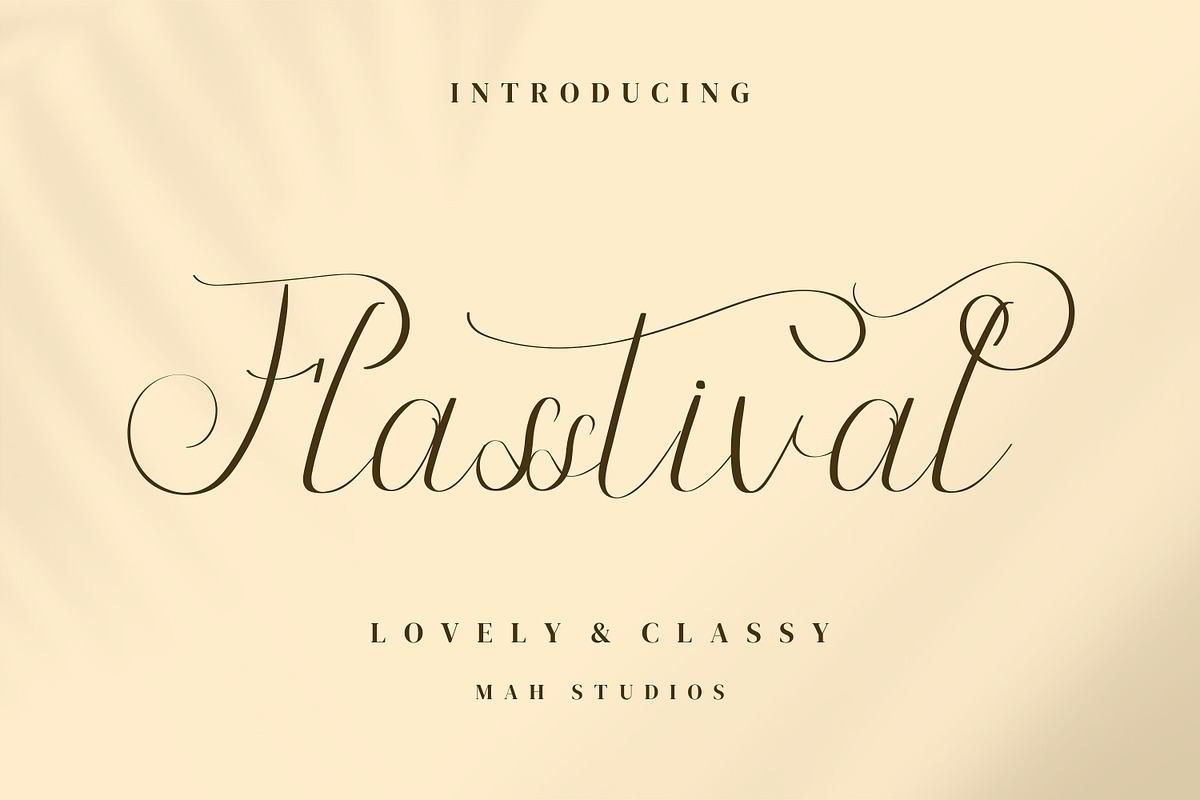
The Flasstival Script Fonts Free Download is an elegant and expressive typeface that brings a sophisticated, handwritten style to your designs. With its smooth curves and dynamic strokes, this script font is perfect for creating personalized branding, invitations, logos, and social media graphics. Whether you're designing for a wedding, a luxury brand, or creative projects that require a stylish flair, Flasstival adds a graceful and refined touch.
Flasstival Script Fonts Free Download is ideal for designers looking for a high-quality, elegant font with a personal, artistic vibe. Perfect for invitations, stationery, or branding, this font will bring a sophisticated handwritten style to your designs. Download this beautiful script font today and elevate your creative projects with its timeless elegance!